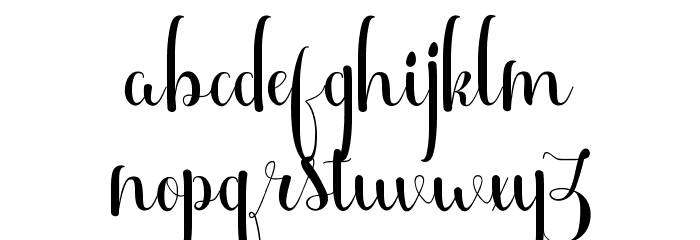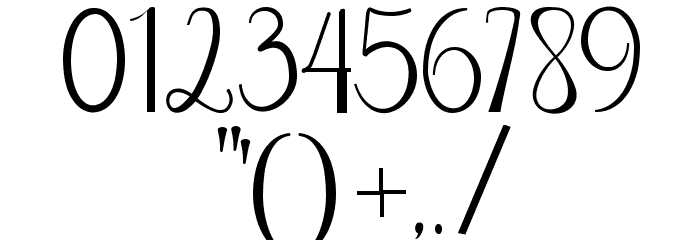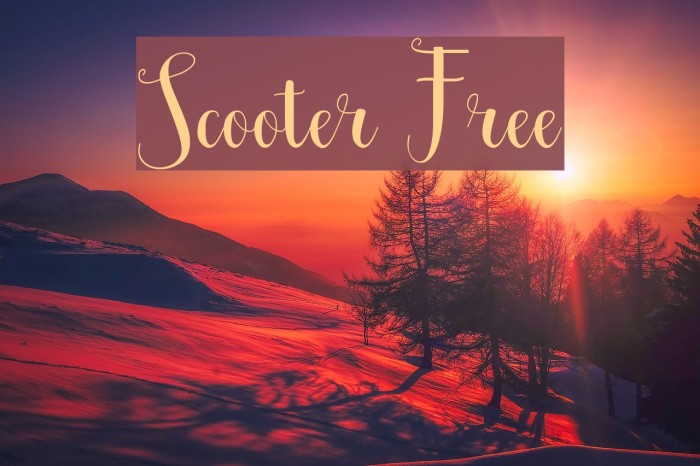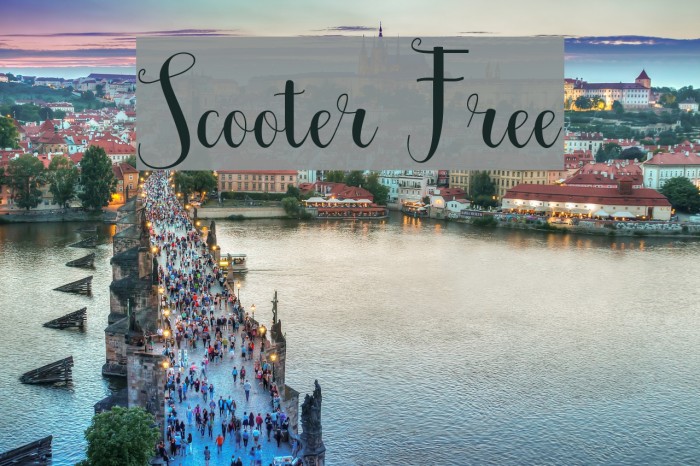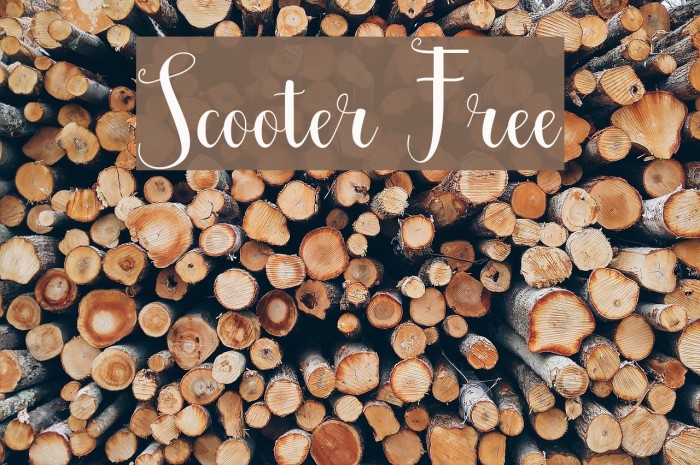
Scooter Free Font
This font features an elegant and whimsical design with a strong emphasis on decorative elements. The uppercase letters are adorned with intricate swirls and loops, giving them a playful yet sophisticated appearance. The lowercase letters maintain a more fluid and cursive style, complementing the uppercase with their graceful curves. The numerals are stylish and consistent with the overall theme, featuring slight embellishments that enhance their visual appeal. Special characters are creatively integrated, maintaining the font's artistic flair. This font is ideal for projects that require a touch of elegance and creativity.
An elegant, decorative font with whimsical swirls and cursive elements.
- Proposed Projects: Ideal for wedding invitations, greeting cards, branding, and artistic posters.
- Use Case: Headlines, Logos, Invitations